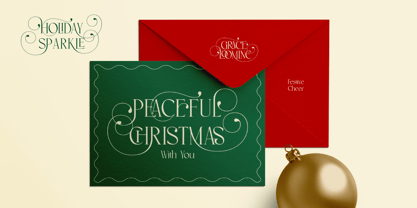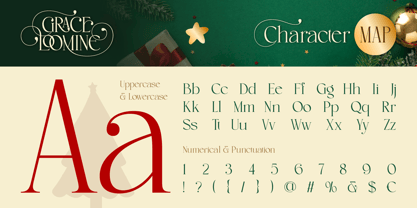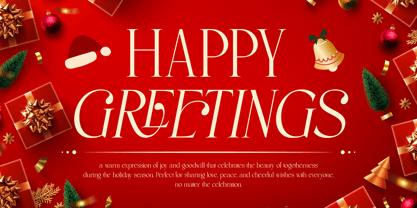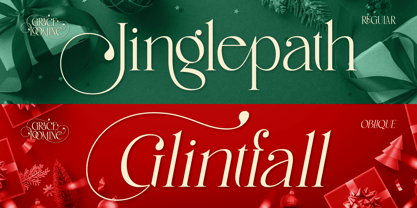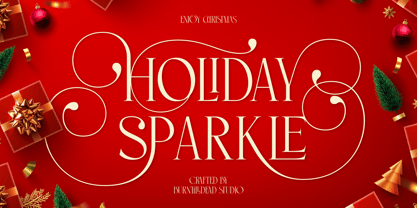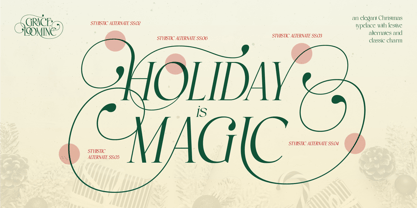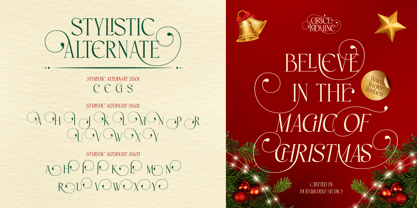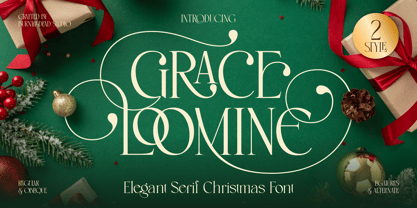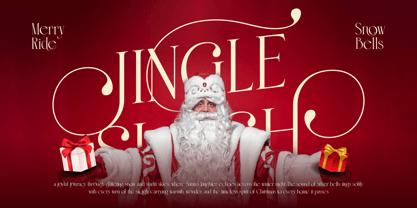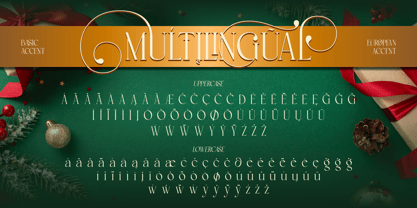
Grace Loomine
by Burntilldead
The Grace Loomine Font Family was designed by Eric Kurniawan and published by Burntilldead. Grace Loomine contains 2 styles and family package options. More about this family
Introducing Grace Loomine, an elegant serif font that perfectly captures the timeless beauty of Christmas. Designed with graceful curves and luxurious swashes, this typeface brings a festive sophistication to every design it touches. Grace Loomine comes in two refined styles — Regular and Oblique — both exuding a sense of warmth, magic, and classic charm. Each letter dances with holiday spirit, featuring beautiful ligatures and stylistic alternates that let you craft stunning greetings, invitations, packaging, or editorial layouts with a touch of grandeur. Whether you’re designing a “Merry Christmas” card, festive signage, or a winter campaign, Grace Loomine transforms words into art. It’s the perfect blend of elegance and celebration, where every curve whispers joy and every detail sparkles like a winter night. Let your holiday projects shine with the graceful sophistication of Grace Loomine — where typography meets Christmas magic. Features: A - Z set (Uppercase & Lowercase), Number, Alternates, Ligatures, Punctuation, Multilingual
Designers: Eric Kurniawan
Foundry: Burntilldead
About Burntilldead
Burntilldead was birthed from the designs of Eric Kurniawan in 2004, focusing on Illustration and based on custom project at the beginning. The idea is simple, to bring high end quality illustration to the client. But at the end of 2015, Burntilldead just expanded into a small team who believed Illustration, designs, and Fonts can do much more. The idea came from our passion and our concern about making something that everyone can have it and more relevant to general design or even daily life. We started to work on some fonts and applied royalty to it. We love illustration, design, and typography! It’s pretty simple, we created things that are original, sleek, and stylish. We’re passionate about making beautiful designs that are simple and accessible to everyone.